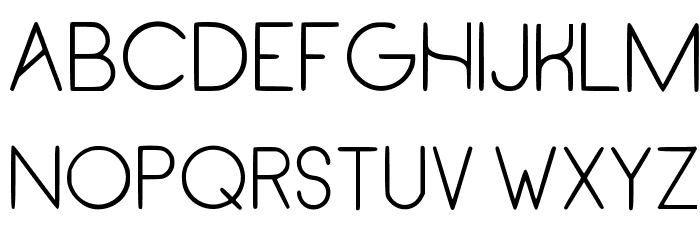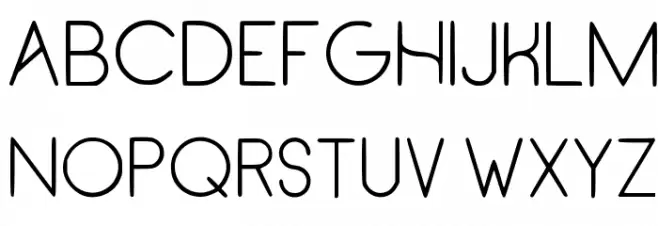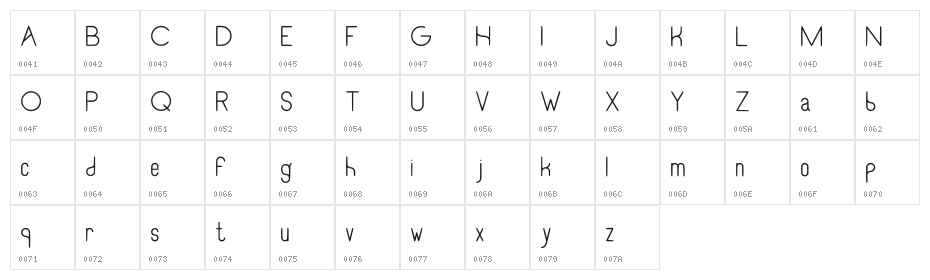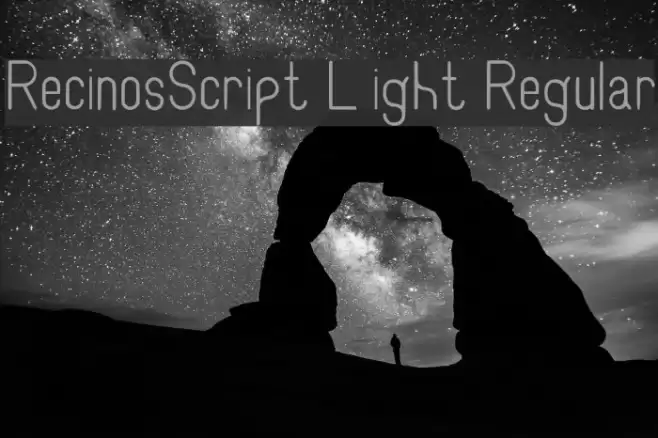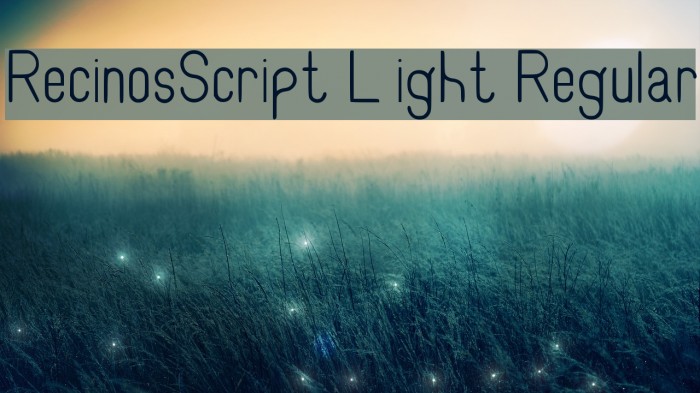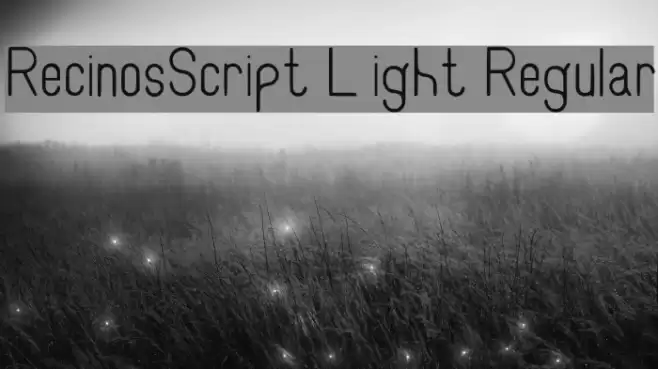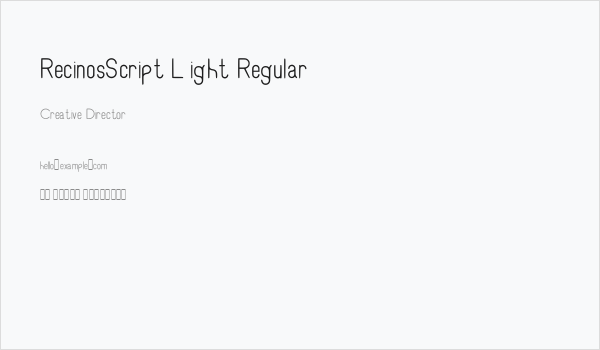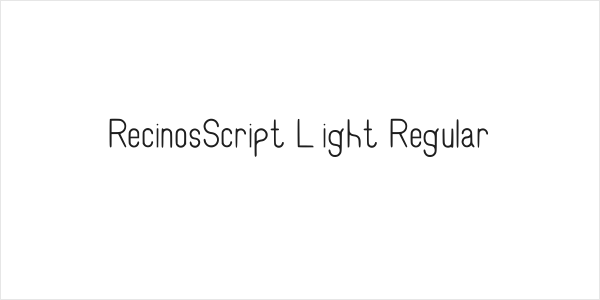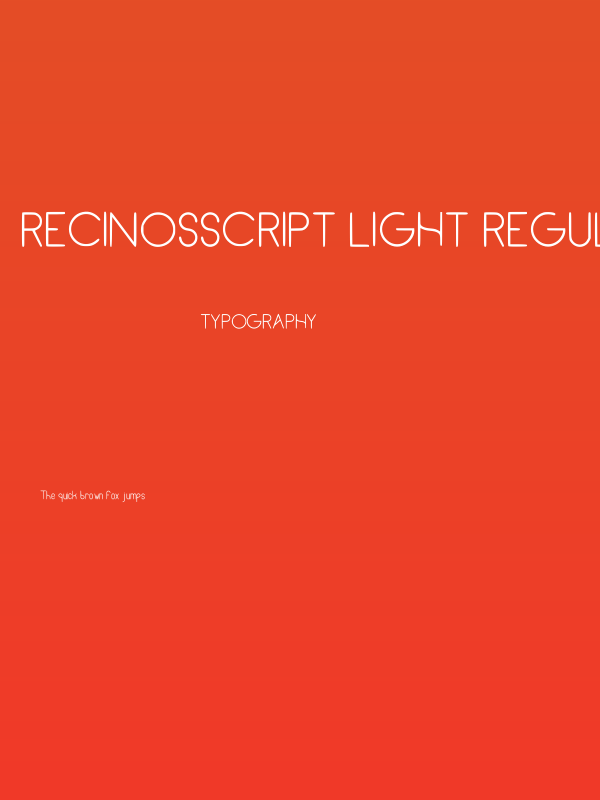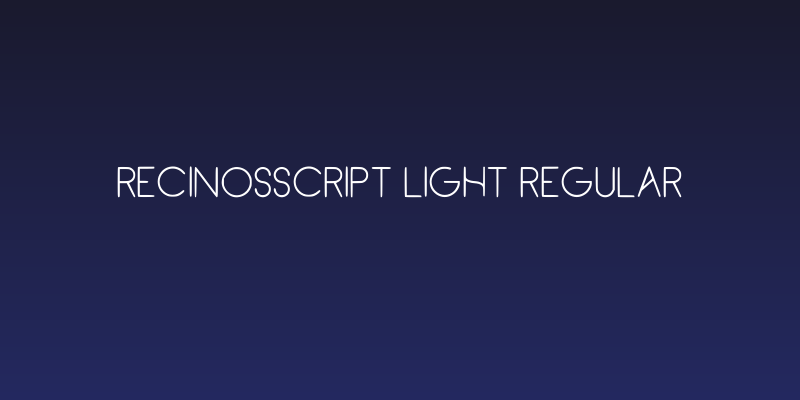
RecinosScript Light Regular Font
RecinosScript Light Regular Description
This font features a unique blend of script and modern design elements, characterized by its light and airy strokes. The uppercase letters are tall and slender, with a slight curve that adds a touch of elegance. The lowercase letters maintain a consistent height, offering a harmonious flow. The numerals are distinct and easy to read, complementing the overall style. Special characters are crafted with the same attention to detail, ensuring versatility across various applications. The font's clean lines and subtle curves make it suitable for a wide range of design projects.